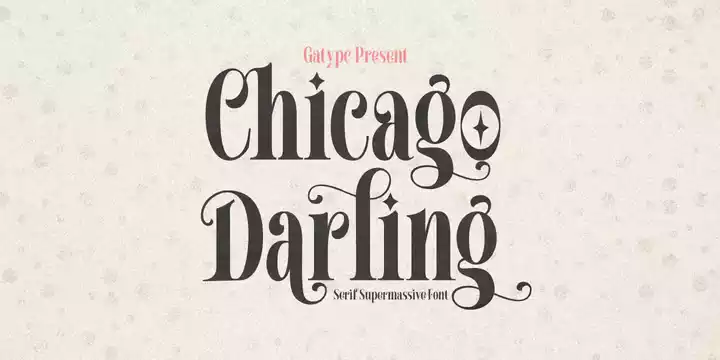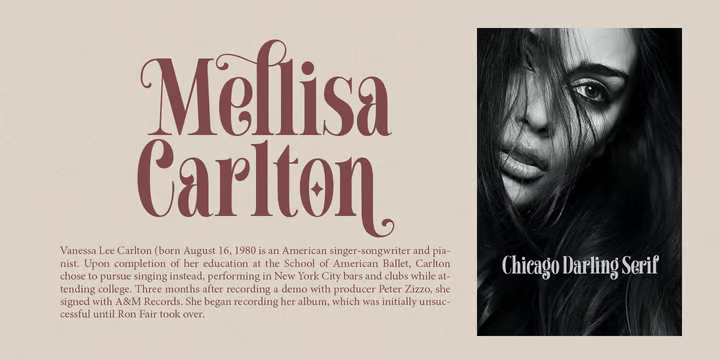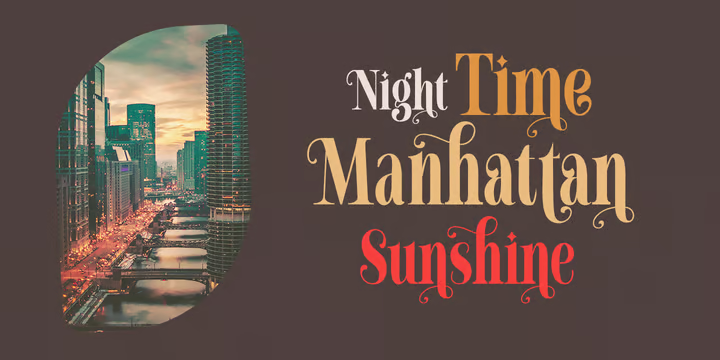
Chicago Darling Serif Font
Chicago Darling is a modern and classy minimalist design typography that features more alternative characters and lots of ties. Lifestyle friendly fonts with on-trend designs. The Chicago Darling is designed to be versatile, to match all your designs. This alternative makes the Chicago Darling very versatile. You can design beautiful, elegant and diverse typographic elements with it. It’s perfect for logos, lettering artwork, t-shirt designs, editorial illustrations to name a few.
Chicago Darling Serif Font is a Modern Fonts font that brings a professional and versatile look to your projects. Chicago Darling is a modern and classy minimalist design typography that features more alternative characters and lots of ties.